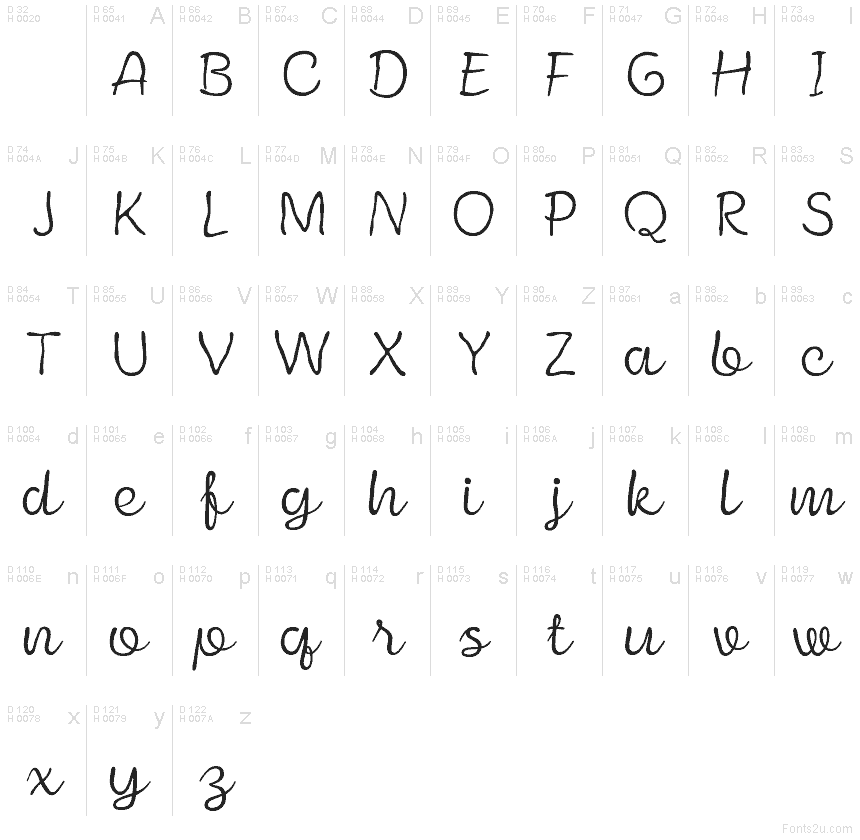
CS Bowie Regular Demo
CS Bowie font is a handwritten masterpiece by Craft Supply Co., marked by its handcrafted feel and casual elegance. The curved, expressive flow lends a lively character to any design, making it an excellent choice for projects seeking a personal touch. Each stroke is thoughtfully created to mimic the natural handwriting style.
Embrace the freedom of CS Bowie in branding, packaging, social media posts, logos, apparel design, stationery, invitations, web design headers, poster design projects and book covers. This free handwritten font effortlessly enhances any creative project with its unique flair.